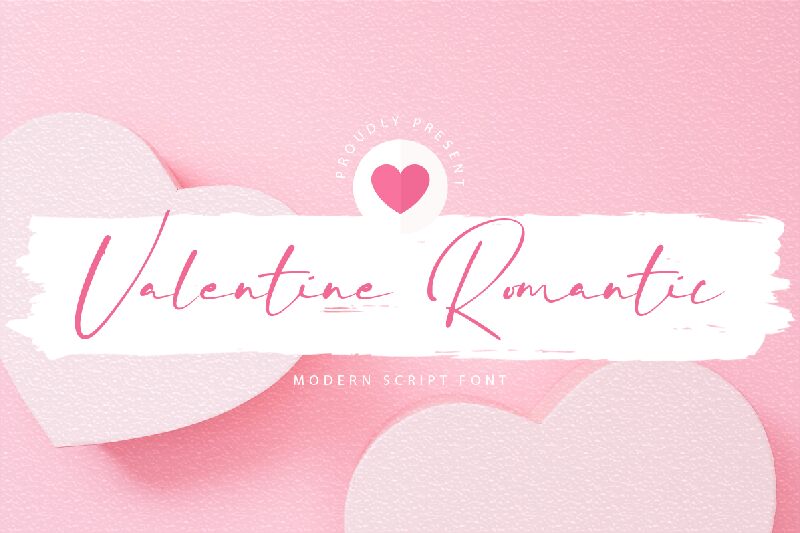
Valentine Romantic by Kong Font captures the essence of heartfelt notes and tender sentiments. With its light weight and handwritten style, this font exudes the intimate charm of a personal message penned with care. Its fluid lines and elegant curves reflect a natural, romantic aesthetic that is perfect for expressing affection and warmth in creative projects.
Ideal for Valentine's Day cards, wedding invitations, or any design aiming to convey love and romance, Valentine Romantic's stylized yet readable characters add a touch of sophistication without sacrificing legibility. The font's allure lies in its ability to marry simplicity with emotion, making it an excellent choice for those seeking to inject a sense of personal connection into their work.
Whether you're crafting an endearing love letter or designing bespoke branding materials, Valentine Romantic offers versatility while maintaining its stylistic integrity. It stands as testimony to the timeless beauty found in handwritten expressions of love.